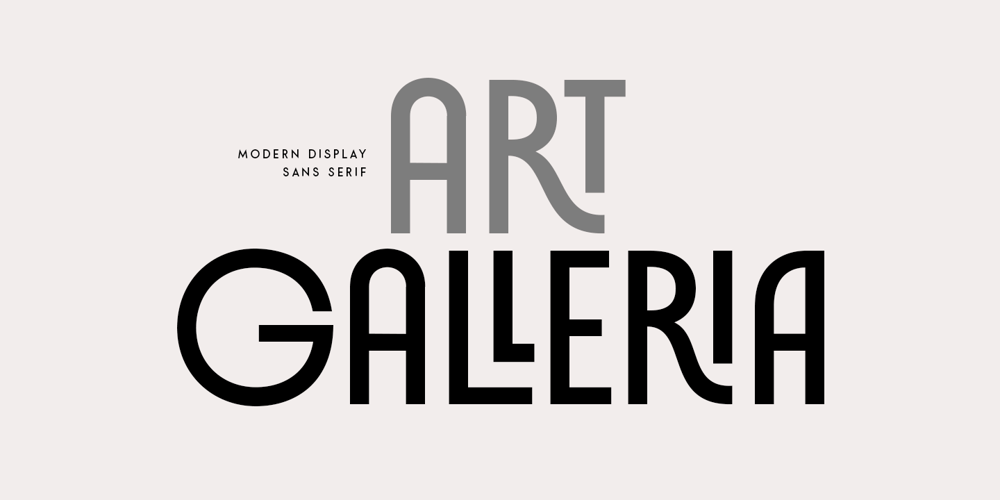
Art Galleria SS Font Family was designed by Zamroni Hamzah and published by Sensatype Studio. Art Galleria SS contains 1 styles and family package options. Art Galleria is a Modern Display Sans SerifA new Modern Display Sans serif that we created special for branding needs, with extra ligature in unique shape add value of your brand. It so nice to leverage designer or product owner that need solutions to make their design look more unique and modern. And specially for Art Galleria font, We prepared any ligatures, and any alternate characters to help you create unlimited variations for your creative needs.Art Galleria Modern Display font ready with: Any options to get creative variations (combination of Alternate and Ligatures) Preview as a inspirations that you can do with Art Galleria font Ready with All Uppercase characters Wish you enjoy our font. 🙂